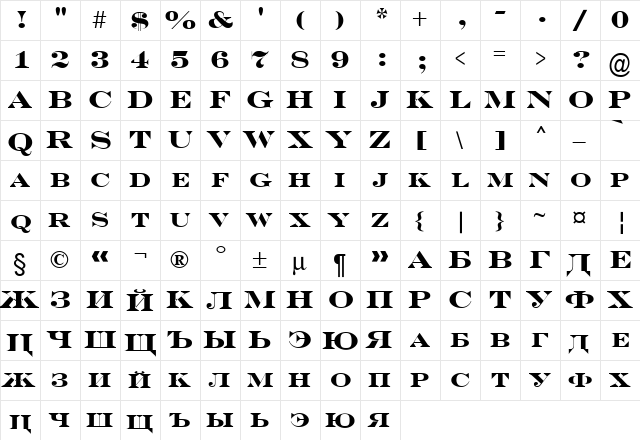
a_SeriferExpCps Bold
Design Context for a_SeriferExpCps Typeface
a_SeriferExpCps brings classic typographic sensibility to the table — its serifs and measured letterforms reflect centuries of print heritage. Its bold stroke weight gives it real presence on the page.